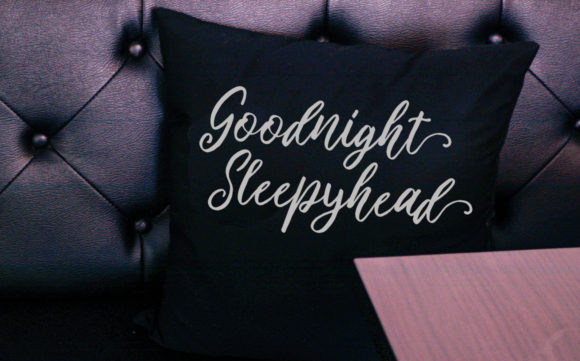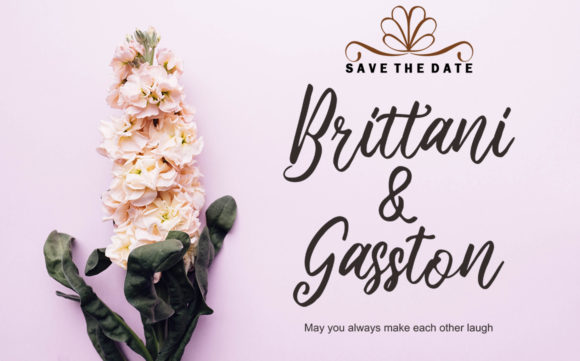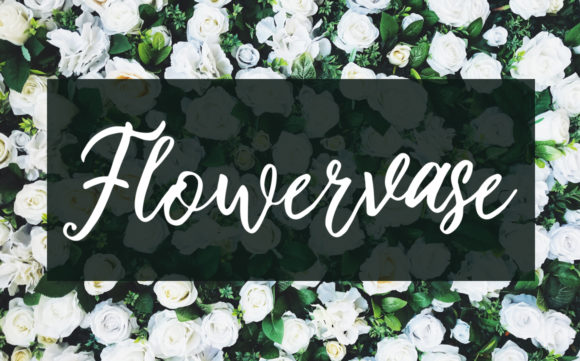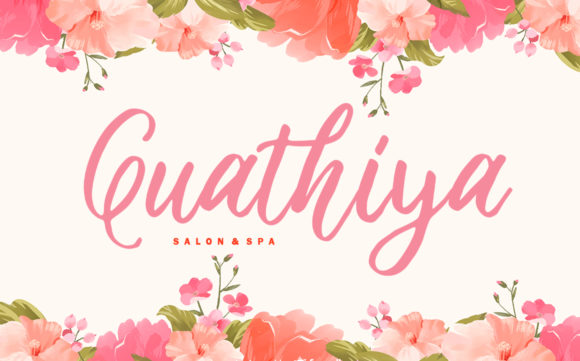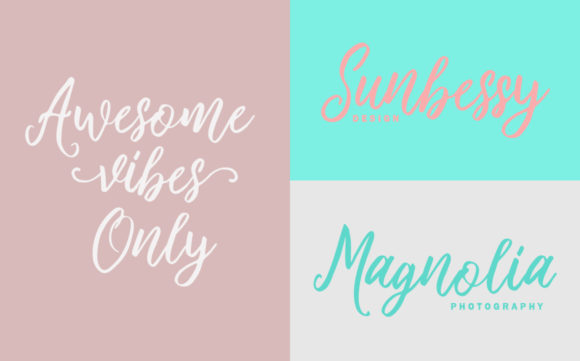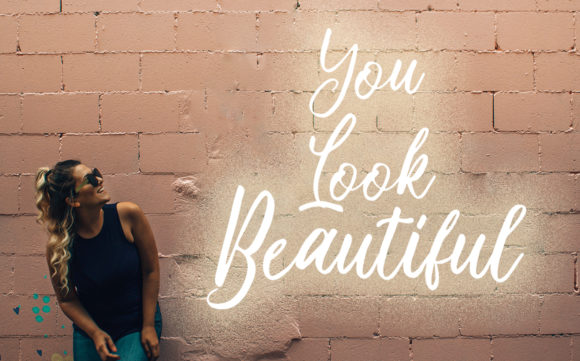
Discover the Elegance of Brissham Font: A Modern Calligraphy Marvel
In the realm of typography, few fonts manage to capture the essence of calligraphy while offering versatility and modern appeal. Brissham Font stands out as a remarkable exception, providing a contemporary homage to the art of calligraphy. This stunning script font is designed to elevate any design project, infusing it with a vibrant feel that is sure to captivate audiences. In this article, we’ll delve into the world of Brissham Font, exploring its features, benefits, and the creative possibilities it offers to designers and crafters alike.
The Essence of Brissham Font
Brissham Font is a modern script typeface that embodies the elegance and fluidity of traditional calligraphy, yet presents itself with a fresh, contemporary twist. Its design is meticulously crafted to deliver an outstanding script font experience, making it an ideal choice for a wide range of design applications. From creative projects such as branding, advertising, and packaging, to digital content like blog posts and social media graphics, Brissham Font brings a touch of sophistication and charm.
Key Features of Brissham Font
- Vibrant Feel: Brissham Font is characterized by its lively and dynamic appearance. Its letters are designed with a sense of movement and fluidity, giving any text a vibrant feel that grabs attention.
- Modern Homage to Calligraphy: While deeply rooted in the tradition of calligraphy, Brissham Font offers a modern interpretation that fits seamlessly into contemporary design landscapes.
- Elegance and Versatility: The font’s elegant strokes and versatile nature make it suitable for a broad spectrum of design projects, from elegant wedding invitations to compelling business branding.
- Easy to Read: Despite its decorative nature, Brissham Font maintains a high level of readability, ensuring that messages are conveyed clearly and effectively.
Brissham Font offers numerous benefits to designers and crafters, making it a valuable addition to any creative toolkit.
- Time-Saving: With Brissham Font, designers can achieve professional-looking results quickly, without the need for extensive custom typography work.
- Consistency: Using a single, high-quality font like Brissham ensures consistency across design projects, enhancing brand identity and visual appeal.
- Inspiration: The unique and captivating style of Brissham Font serves as a source of inspiration, encouraging designers to explore new creative avenues.
Creative Applications of Brissham Font
The versatility of Brissham Font lends itself to a myriad of creative applications. Here are a few ideas to get started:
- Branding and Logotypes: Use Brissham Font to create memorable brand names and logotypes that stand out.
- Wedding and Event Stationery: Add a touch of elegance to wedding invitations, menus, and event programs.
- Digital Content: Enhance blog posts, social media graphics, and website headers with a dash of sophistication.
- Packaging: Make product packaging more appealing and distinctive with the unique charm of Brissham Font.
Brissham Font is more than just a script typeface; it’s a tool for creativity, a means to transform ordinary designs into extraordinary ones. Its modern take on traditional calligraphy, combined with its vibrant feel and versatility, makes it an invaluable asset for designers and crafters. Whether you’re working on a branding project, crafting beautiful stationery, or enhancing digital content, Brissham Font offers the perfect blend of elegance and modern appeal. So, fall in love with its charm and turn your design projects into true standouts with Brissham Font.